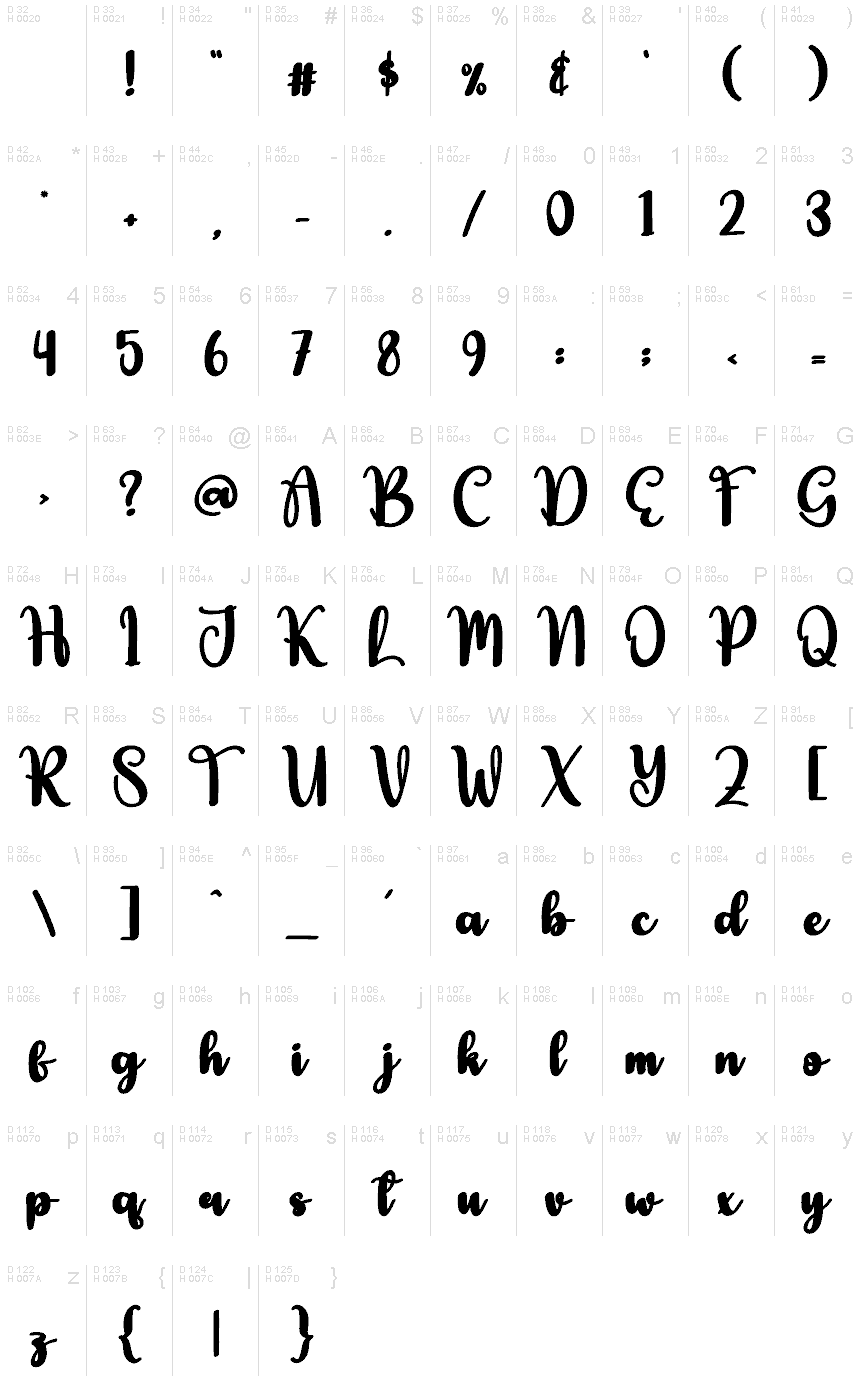
Huggle
Huggle font from Scratchones is a free brush font with an expressive and elegant cursive style. Familiar but still stimulating curiosity, it is modern and friendly, which explains the multiple possibilities of use in personal or professional projects.